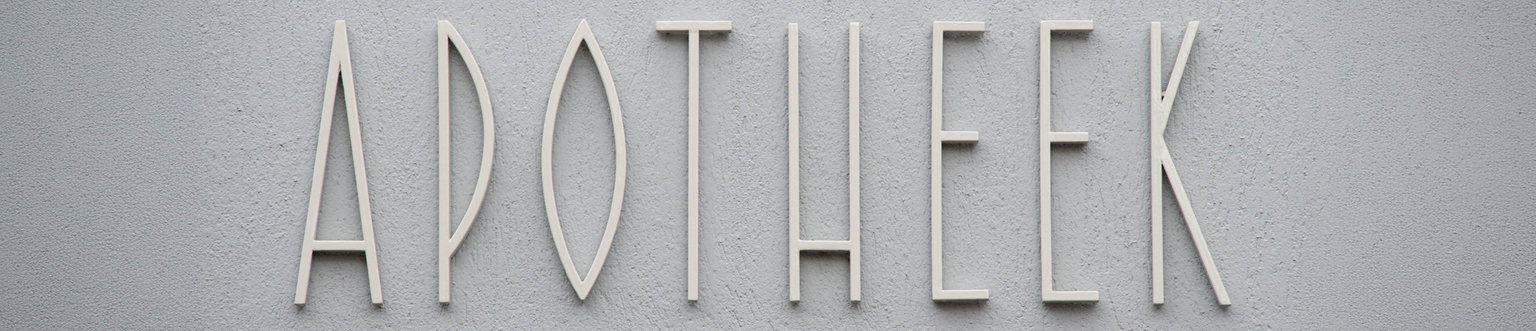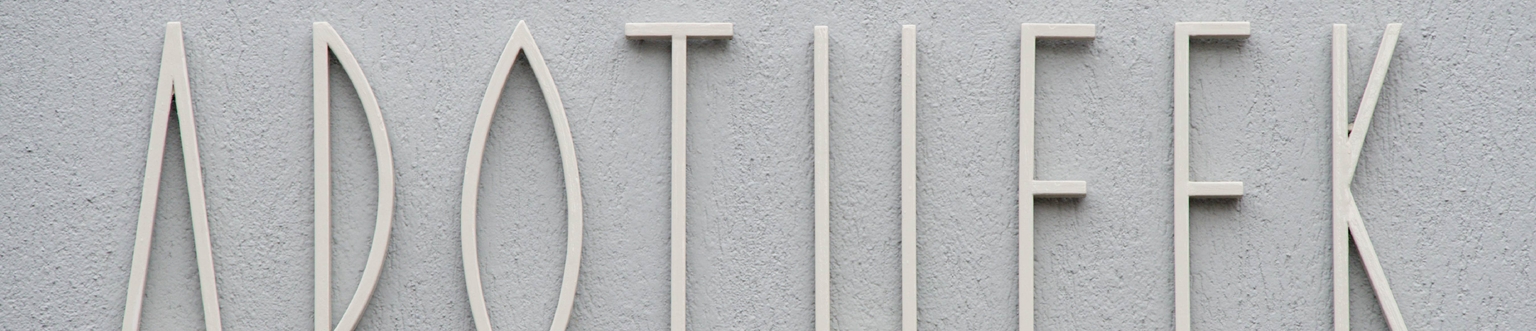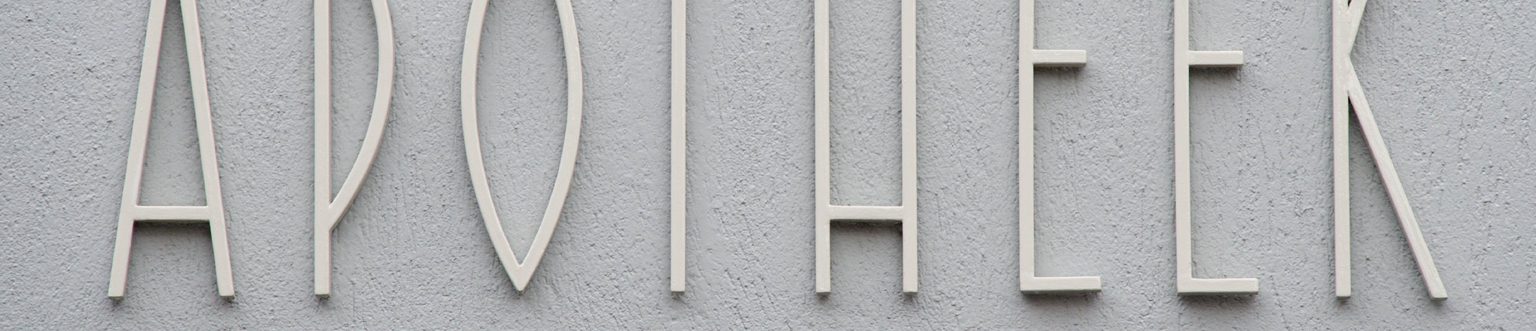
Pawla
Pawla is a compressed, ultra-thin display typeface designed by Ramiro Espinoza and inspired by the Deco-style lettering found on the façade of a former pharmacy in Hilversum, the Netherlands. The original sign features unusually narrow proportions combined with delicate linear construction, creating a refined balance between elegance and functionality. A distinctive characteristic of the design is its use of lenticular shapes in place of conventional circular forms for rounded glyphs, giving the typeface a sharp and highly recognizable rhythm.
Espinoza studied the structural logic of the original lettering work and translated these qualities into a contemporary digital typeface. Rather than reproducing the source literally, he refined the spacing, standardized the construction, and expanded the character set to support present-day typographic use, while preserving the lightness and pronounced vertical emphasis of the original forms.
With its compressed structure and Deco character, Pawla is well suited for fashion branding, cosmetics packaging, editorial headlines, posters, signage, websites, and cultural projects that benefit from a sophicticated typographic voice. Rooted in early twentieth-century commercial lettering, the typeface brings a subtle architectural elegance into contemporary graphic design.